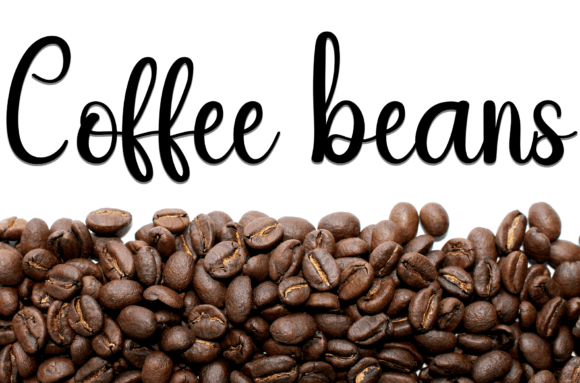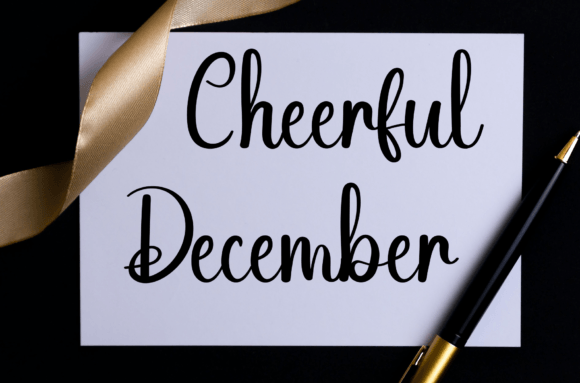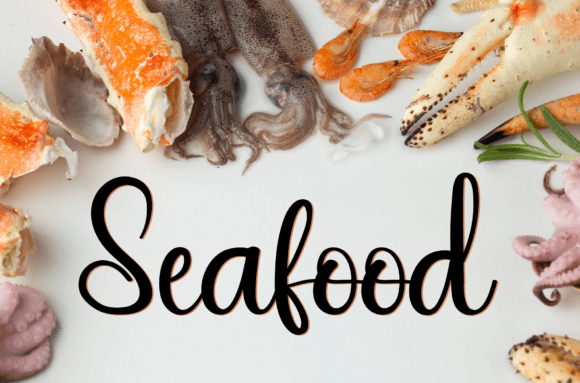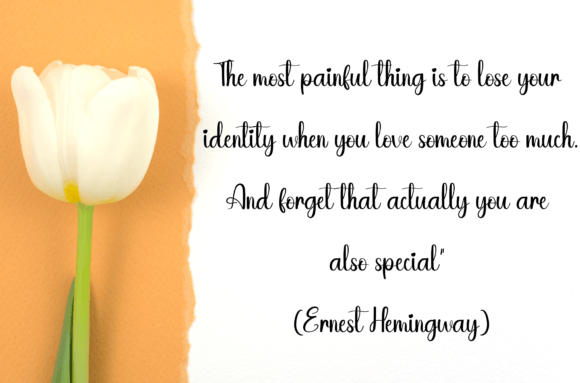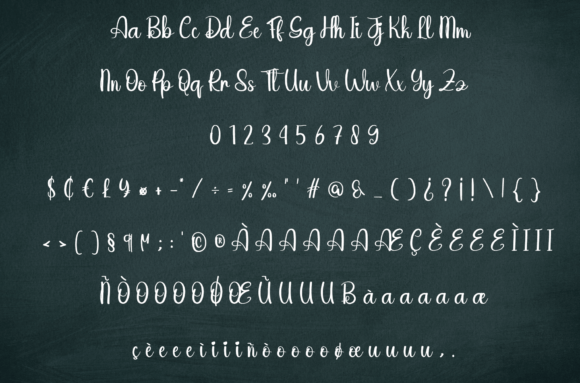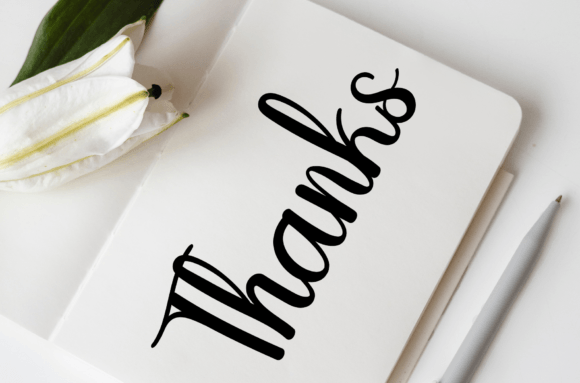
Hunter Night Font
About Hunter Night Font
Hunter Nightfont is a stylish and contemporary handwritten typeface designed to add an elegant and personal touch to your creative projects. Its latest style brings freshness and sophistication, making it suitable for various design applications.
Perfect for Wedding Invitations and Stationery
This font lends itself beautifully to wedding invitations, thank you cards, and other stationery items. Its graceful, flowing letters add warmth and charm, ensuring your event materials stand out with a personal feel.
Ideal for Branding and Packaging
Hunter Nightfont also excels in branding projects, product packaging, and label designs. Its handwritten style gives products an authentic, handcrafted look that appeals to customers seeking quality and uniqueness.
Versatile for Digital and Print Media
From social media posts and logos to photography watermarks and advertisements, Hunter Nightfont adapts well across digital and print platforms. Its clean lines and elegant curves make your designs visually appealing and easy to read.
Why Choose Hunter Night Font?
If you want a font that blends modern style with the beauty of handwriting, Hunter Nightfont is an excellent choice. It enhances your work with sophistication and personality, making it a valuable asset for designers looking to create memorable and stylish designs.